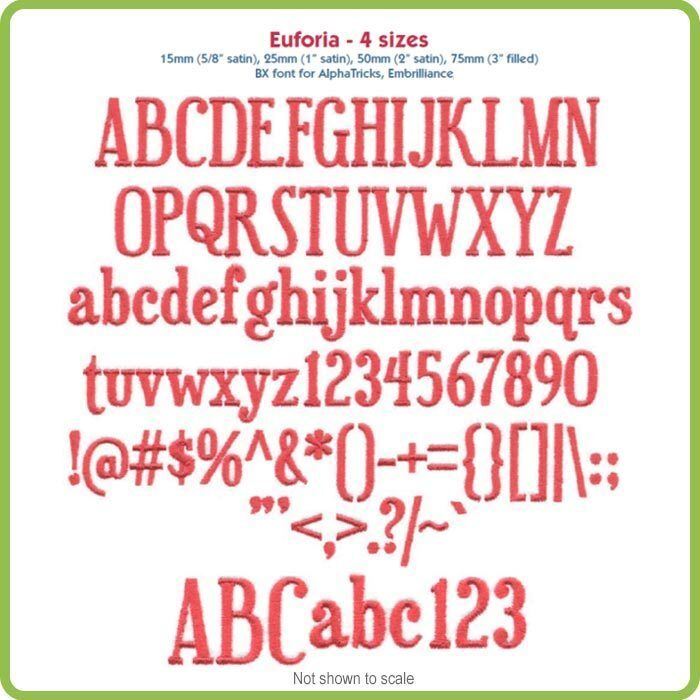
Euforia BX Fonts– 4 sizes: 15mm, 25mm, 50mm and 75mm (included designs are not available individually)
Collection Notes:  Condensed serif with dropped caps alphabet includes A-Z, a-z, 0-9, and the following punctuation: ~!@#$%&()-[]:;"',.?/ in 4 sizes: 15mm (5/8" satin), 25mm (1" satin), 50mm (2" satin), 75mm (3" filled).